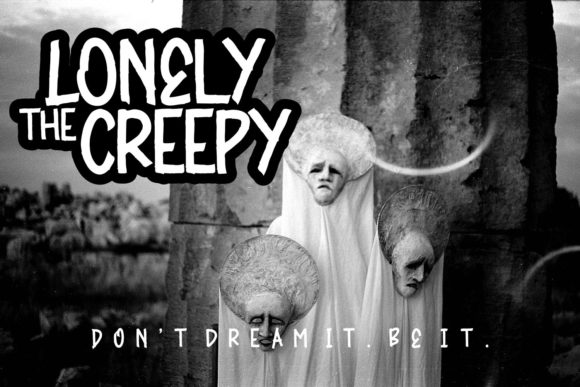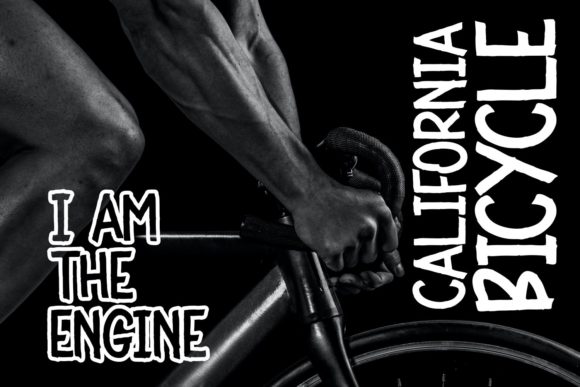
Discover the Unique Style of Gerald Raymond Font
Are you tired of using the same old fonts in your designs? Look no further than the Gerald Raymond Font, a display font that is sure to make your work stand out with its distinctive style. This font is perfect for designers and crafters who want to add a touch of personality to their projects.
What Makes Gerald Raymond Font Special?
Gerald Raymond Font is a one-of-a-kind display font that was made to stand out from the rest. Its unique style is sure to grab attention and leave a lasting impression. The font features a bold and eye-catching design, with a contrasting outline that adds depth and dimension. This makes it perfect for use in a variety of design projects, from posters and flyers to logos and branding materials.
Key Features of Gerald Raymond Font
- Distinctive Style: Gerald Raymond Font has a unique and eye-catching design that is sure to make your work stand out.
- Contrasting Outline: The font features a contrasting outline that adds depth and dimension to your designs.
- Display Font: Gerald Raymond Font is a display font, making it perfect for use in headlines, titles, and other display text.
- Versatile: This font can be used in a variety of design projects, from posters and flyers to logos and branding materials.
How to Use Gerald Raymond Font in Your Designs
Gerald Raymond Font is easy to use and can be incorporated into your designs in a variety of ways. Here are a few ideas to get you started:
- Headlines and Titles: Use Gerald Raymond Font as a headline or title font to add a touch of personality to your designs.
- Logos and Branding: This font is perfect for use in logos and branding materials, such as business cards and letterheads.
- Posters and Flyers: Gerald Raymond Font is a great choice for posters and flyers, where you want to grab attention and make a lasting impression.
- Social Media Graphics: Use this font to add a touch of personality to your social media graphics, such as Facebook posts and Instagram stories.
Tips for Pairing Gerald Raymond Font with Other Fonts
When pairing Gerald Raymond Font with other fonts, it’s essential to choose fonts that complement its unique style. Here are a few tips to keep in mind:
- Choose a Contrasting Font: Pair Gerald Raymond Font with a font that has a contrasting style, such as a serif or script font.
- Consider a Neutral Font: A neutral font, such as Arial or Helvetica, can provide a clean and simple contrast to the bold style of Gerald Raymond Font.
- Experiment with Font Sizes: Experiment with different font sizes to create visual interest and hierarchy in your designs.
Gerald Raymond Font is a unique and eye-catching display font that is sure to make your designs stand out. With its distinctive style and contrasting outline, this font is perfect for use in a variety of design projects. Whether you’re a designer or crafter, Gerald Raymond Font is a great choice for adding a touch of personality to your work. So why not give it a try and see the impact it can have on your designs?